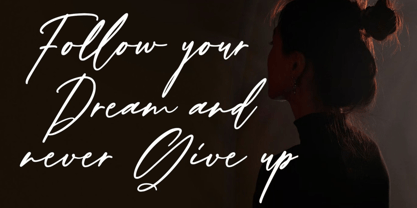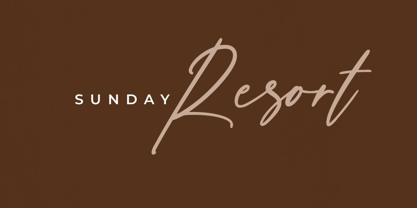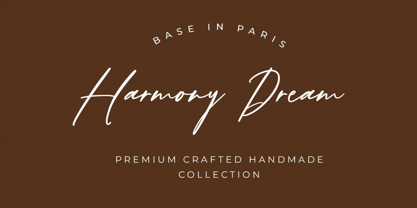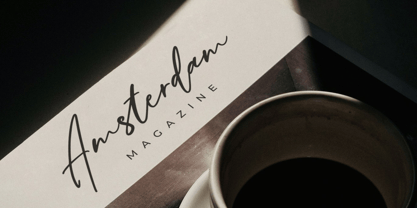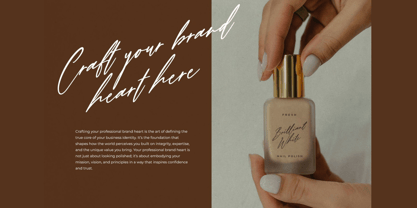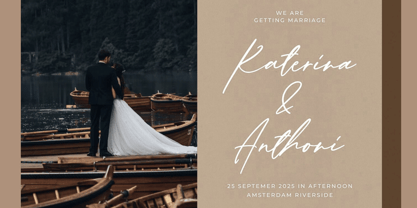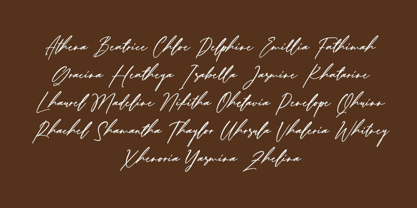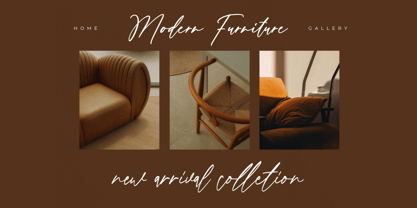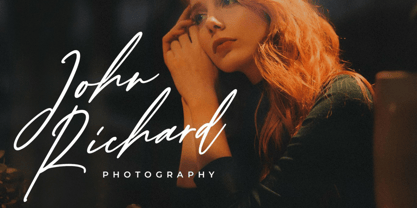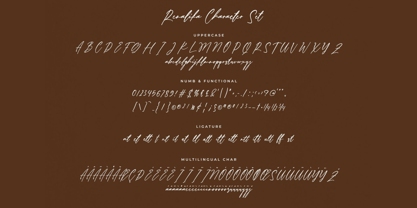
Rosmute
by Hasnat Studio
The Rosmute Font Family was designed by Hasnat Khan and published by Hasnat Studio. Rosmute contains 1 styles. More about this family
Rosmute is a modern script font that combines elegance, creativity, and versatility. Designed with smooth strokes and stylish curves, this font is perfect for adding a contemporary touch to your projects. Whether you’re working on logotypes, wedding invitations, branding, magazine layouts, product packaging, or social media content, Rosmute enhances your designs with a chic and modern aesthetic.
Its handcrafted look makes it ideal for fashion brands, photography watermarks, event stationery, advertisements, and editorial projects, ensuring your typography always stands out with personality and sophistication.
Key Features:
• Modern Script Design: Elegant letterforms with stylish flow and natural handwriting appeal.
• Complete Character Set: Includes uppercase, lowercase, numerals, and punctuation.
• OpenType Features: Alternates and ligatures for unique and creative text compositions.
• Multilingual Support: Covers a wide range of international characters.
Perfect For:
• Branding & Logo Design – Create stylish, modern, and memorable identities.
• Wedding Invitations & Stationery – Add elegance to special event designs.
• Editorial & Magazines – Perfect for cover titles and feature layouts.
• Product Packaging & Labels – Enhance the premium look of your brand.
• Photography & Watermarks – Add a personal signature-style touch.
• Social Media & Advertisements – Create eye-catching and modern visuals.
• Special Events & Quotes – Elevate designs with a handwritten, elegant script.
Bring a touch of modern elegance and stylish charm to your creative projects with Rosmute—a versatile script font designed to make every design shine with sophistication.